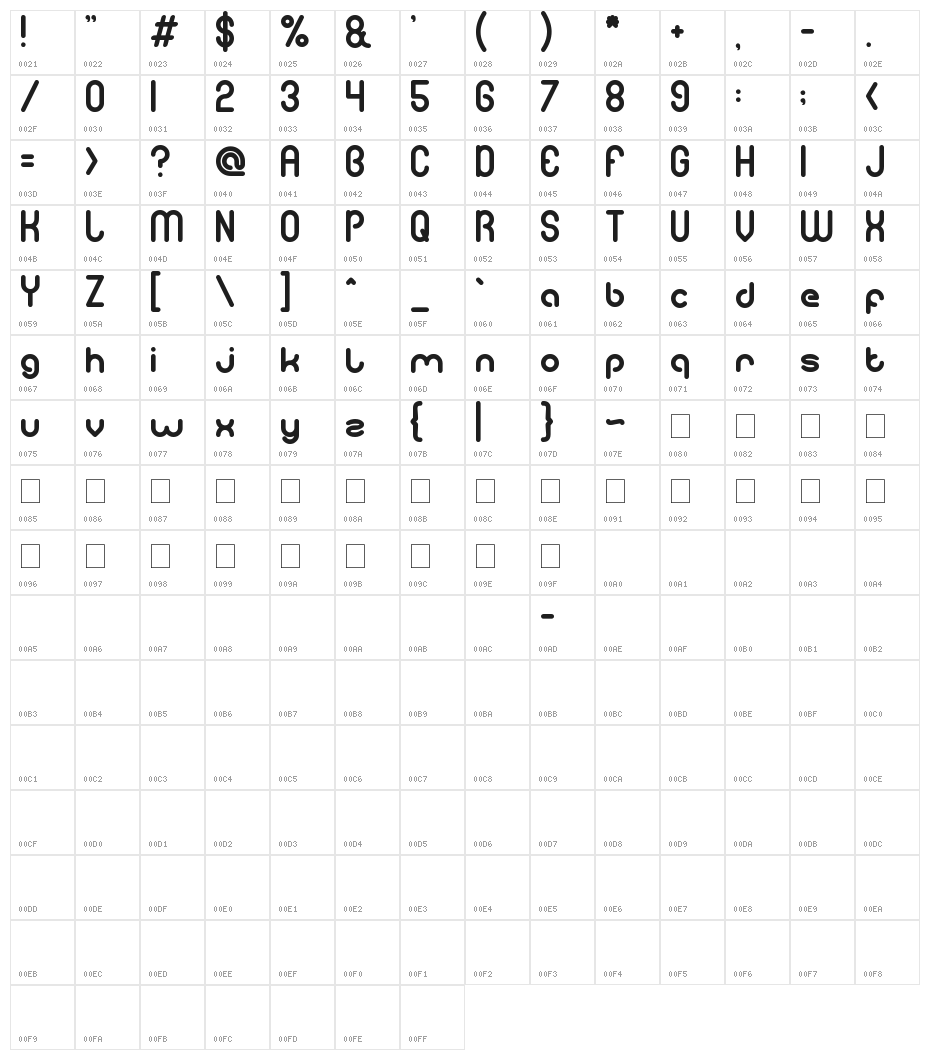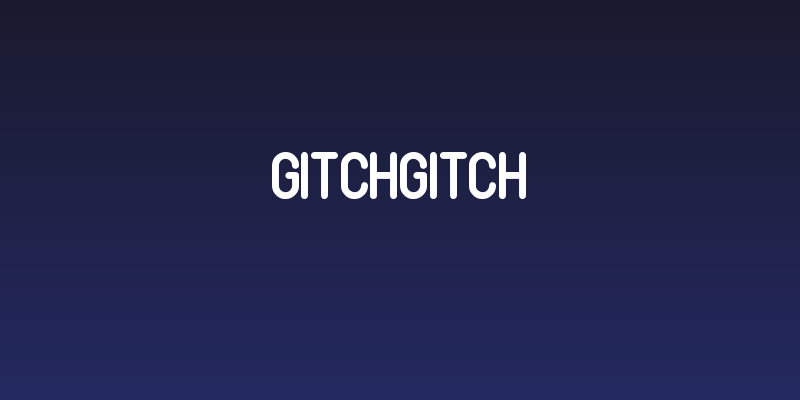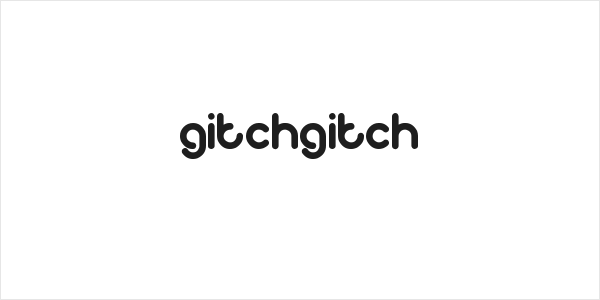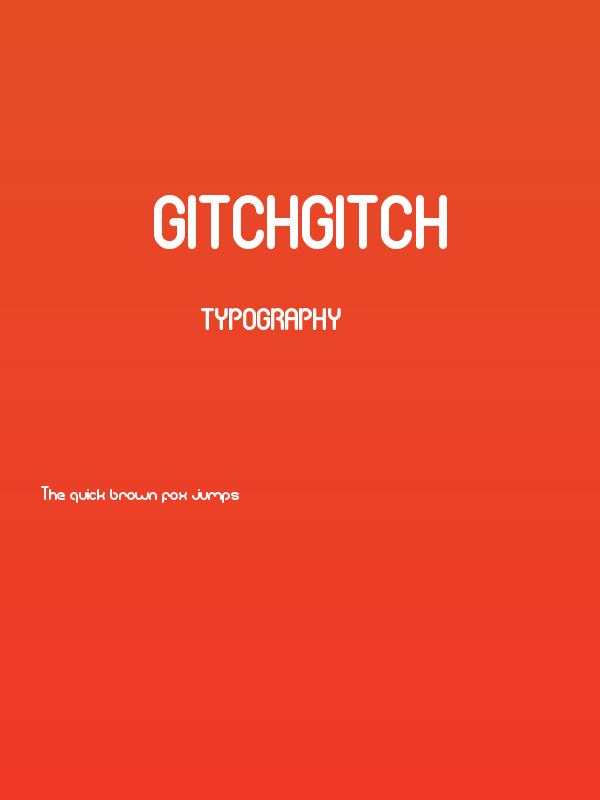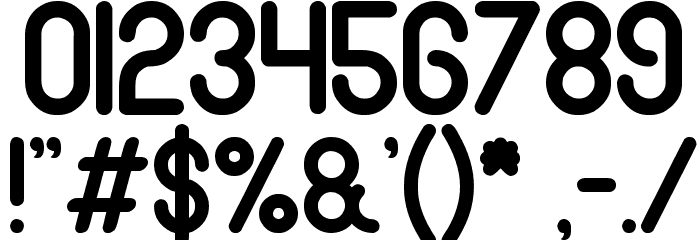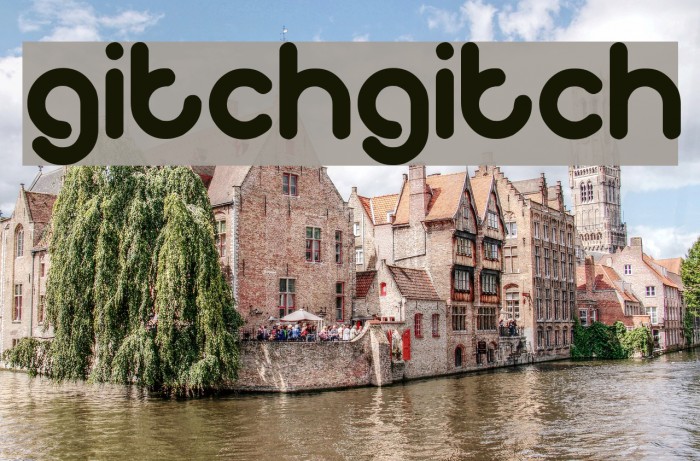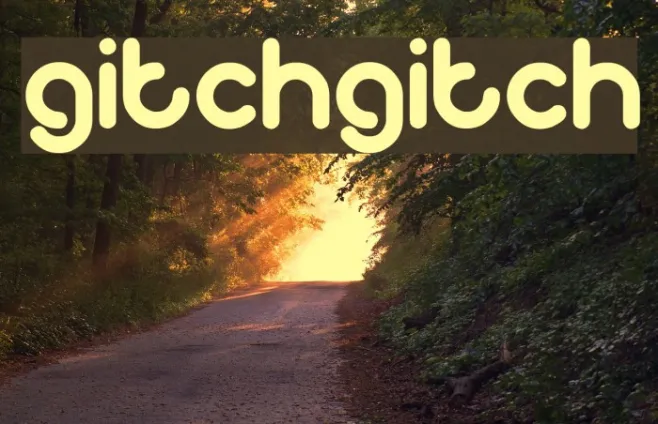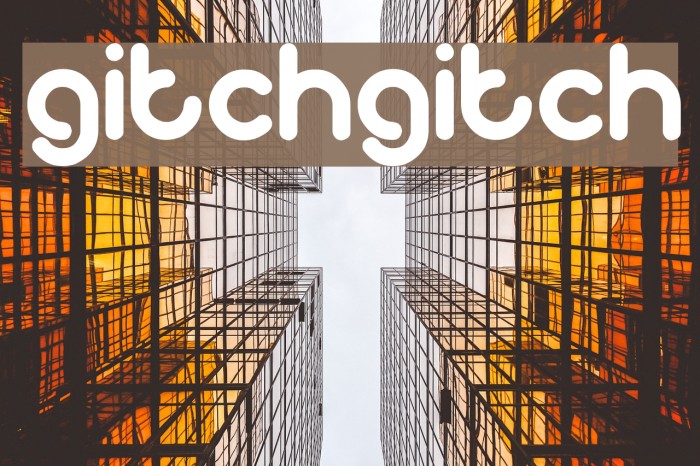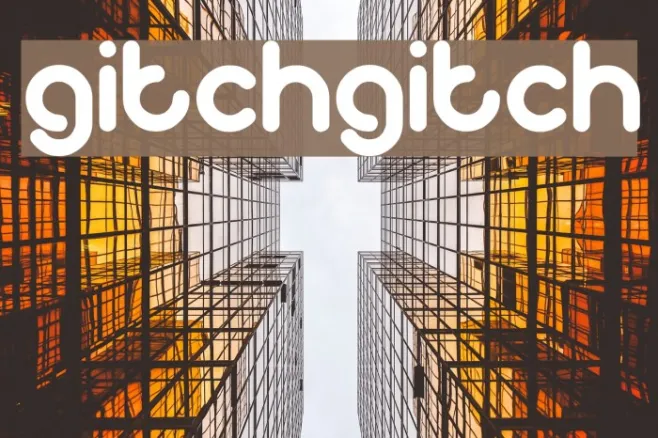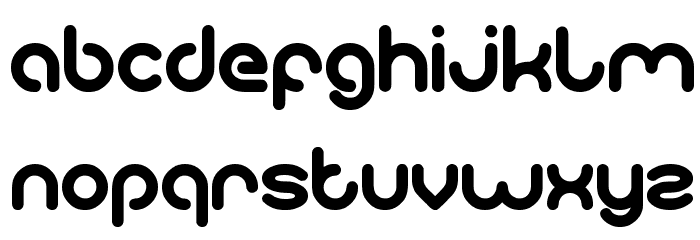
gitchgitch Font
gitchgitch Description
This font features a playful and rounded design, characterized by its smooth curves and consistent stroke width. The letters are bold and have a uniform thickness, giving them a modern and friendly appearance. The rounded edges and lack of sharp angles contribute to its approachable and casual style. The numerals and special characters maintain the same rounded aesthetic, ensuring a cohesive look across all characters. This font is highly legible and versatile, suitable for a variety of design applications where a contemporary and informal tone is desired.
| Proposed Projects | Ideal for children's books, playful branding, casual invitations, and modern web design. |